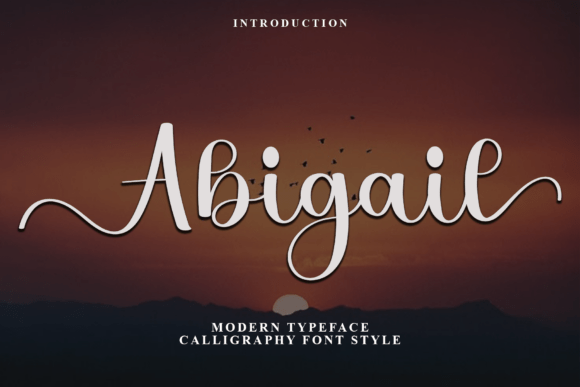
The Designer’s Delight: Uncovering the Charm of Abigail Font
A First Impression: What Makes Abigail Font Special
Abigail Font is a beautiful and eye-catching font designed with a soft, unique touch. Its distinctive strokes give it a special character, making it meaningful and versatile for future use. With various characters, it’s perfect for design projects, crafts, and other creative works. Compatible with various applications, including Windows and open-source platforms, this natural font style is ideal for a wide range of products.
Here’s what I love about Abigail Font:
- ✨ Unique character set: The font comes with a wide range of characters, making it perfect for creative projects.
- ✅ Easy to read: Despite its unique design, Abigail Font is surprisingly easy to read, even at smaller sizes.
- 💡 Versatile: It works well for both digital and print projects, from social media graphics to brochures and posters.
And here are a few quirks to keep in mind:
- 🤔 Limited multilingual support: While Abigail Font covers the basics, it may not support all languages or special characters.
- ⚠️ Occasional kerning issues: As with any font, you may need to adjust kerning for optimal results, especially in larger text blocks.
- Experiment with OpenType features, such as Stylistic Alternates, to add more flair to your text.
- Access OpenType features, such as Glyphs and Ligatures, to add more depth to your design.
The Story Behind Abigail Font
Abigail Font was designed with the intention of creating a unique, yet approachable font for creative projects. Inspired by classic typography and modern design trends, the font’s creator aimed to produce a versatile and beautiful font that would appeal to designers and non-designers alike.
In conclusion, Abigail Font is a unique and versatile font perfect for designers, crafters, and creative hobbyists. With its distinctive strokes and wide range of characters, it’s an excellent choice for a wide range of projects. By understanding its features, quirks, and uses, you can unlock the full potential of Abigail Font and take your designs to the next level.